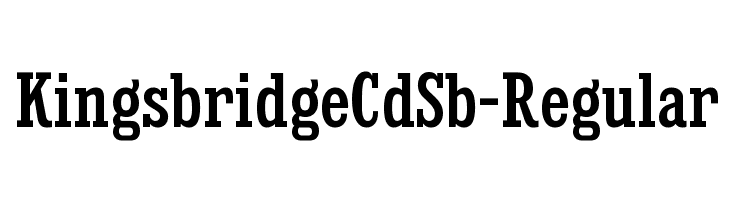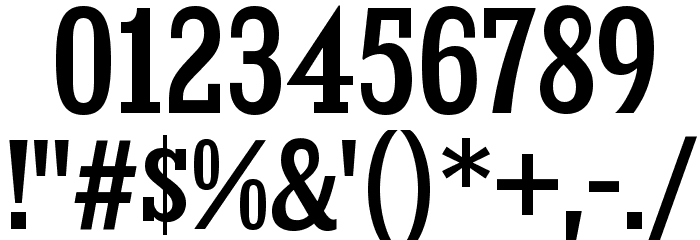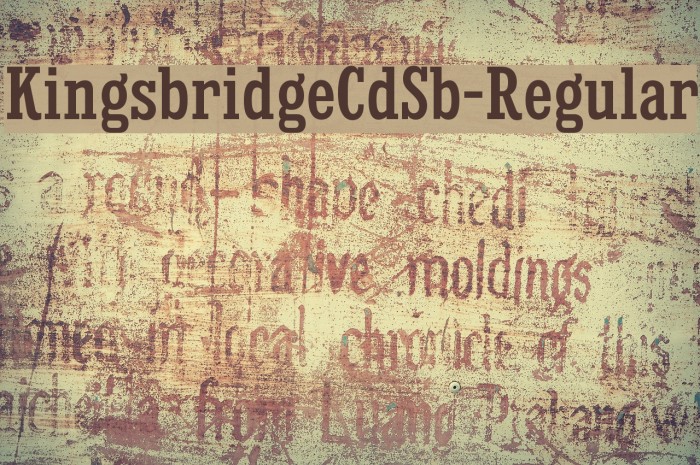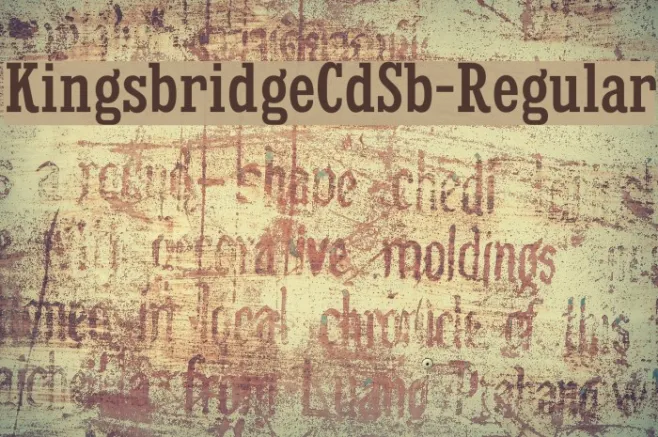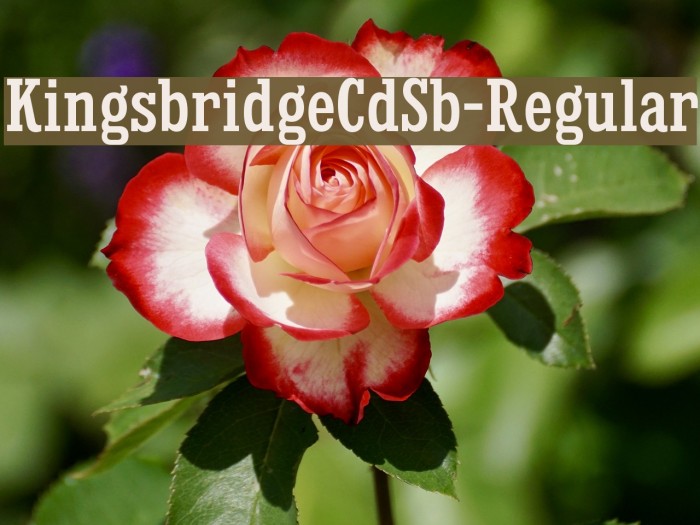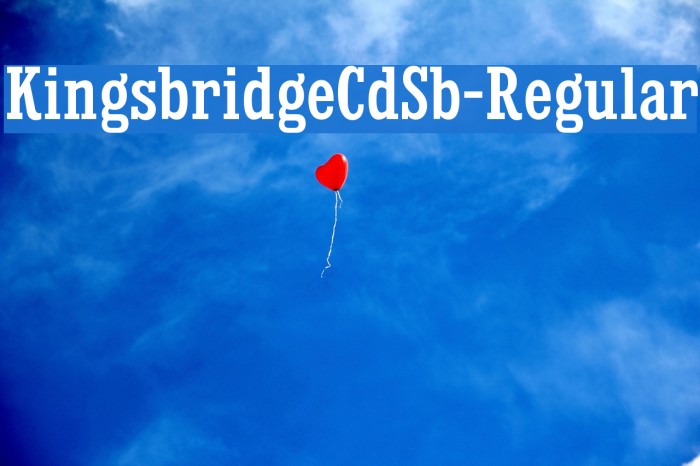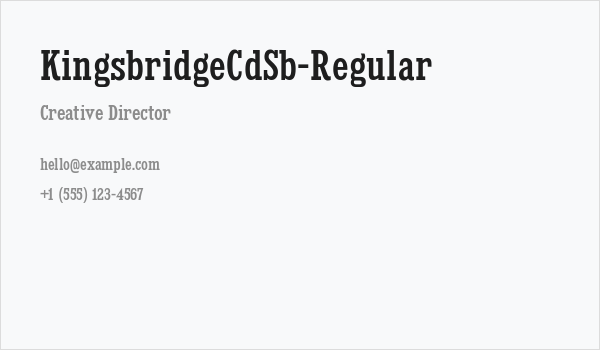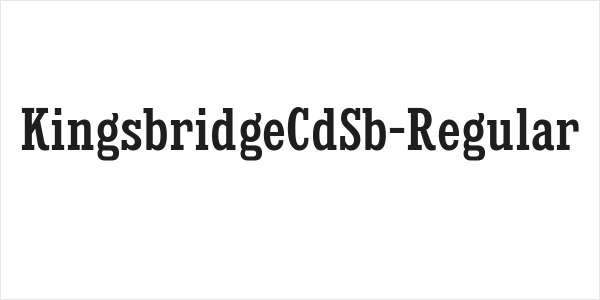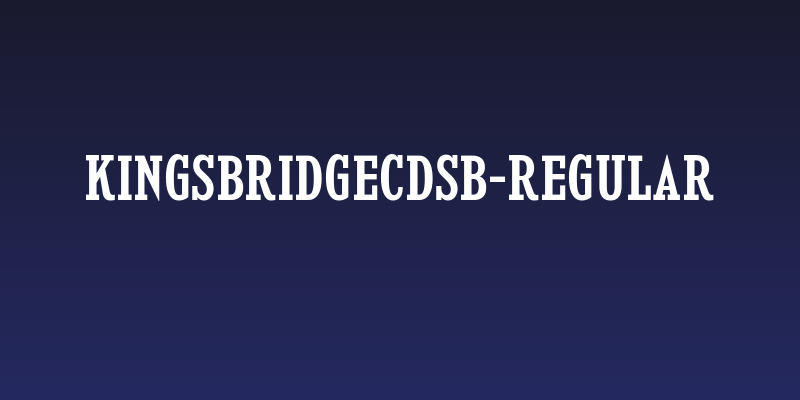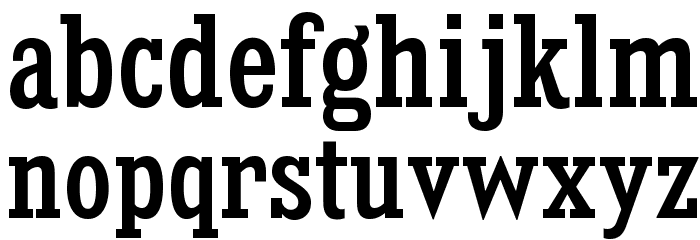
KingsbridgeCdSb-Regular Font
KingsbridgeCdSb-Regular Description
This font features a bold, commanding presence with its strong, slab serif design. The characters are well-defined with thick strokes, giving it a robust and sturdy appearance. The uppercase letters are tall and imposing, while the lowercase letters maintain a consistent style that complements the overall design. The numerals are clear and easily readable, making them suitable for various applications. The special characters are crafted with the same attention to detail, ensuring a cohesive look across all glyphs. This font's boldness and clarity make it ideal for impactful headlines and attention-grabbing designs.
| Proposed Projects | Ideal for headlines, posters, branding, and any project requiring a strong visual impact. |